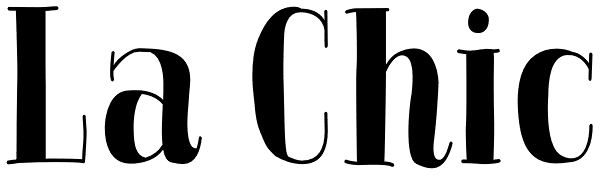
La Chic
The La Chic family comes loaded with an extended character set of 575 glyphs covering a range of languages and alternate versions of letterforms for display use. La Chic's Ligature feature comes with the standard fi and fl ligatures, as well as ff...